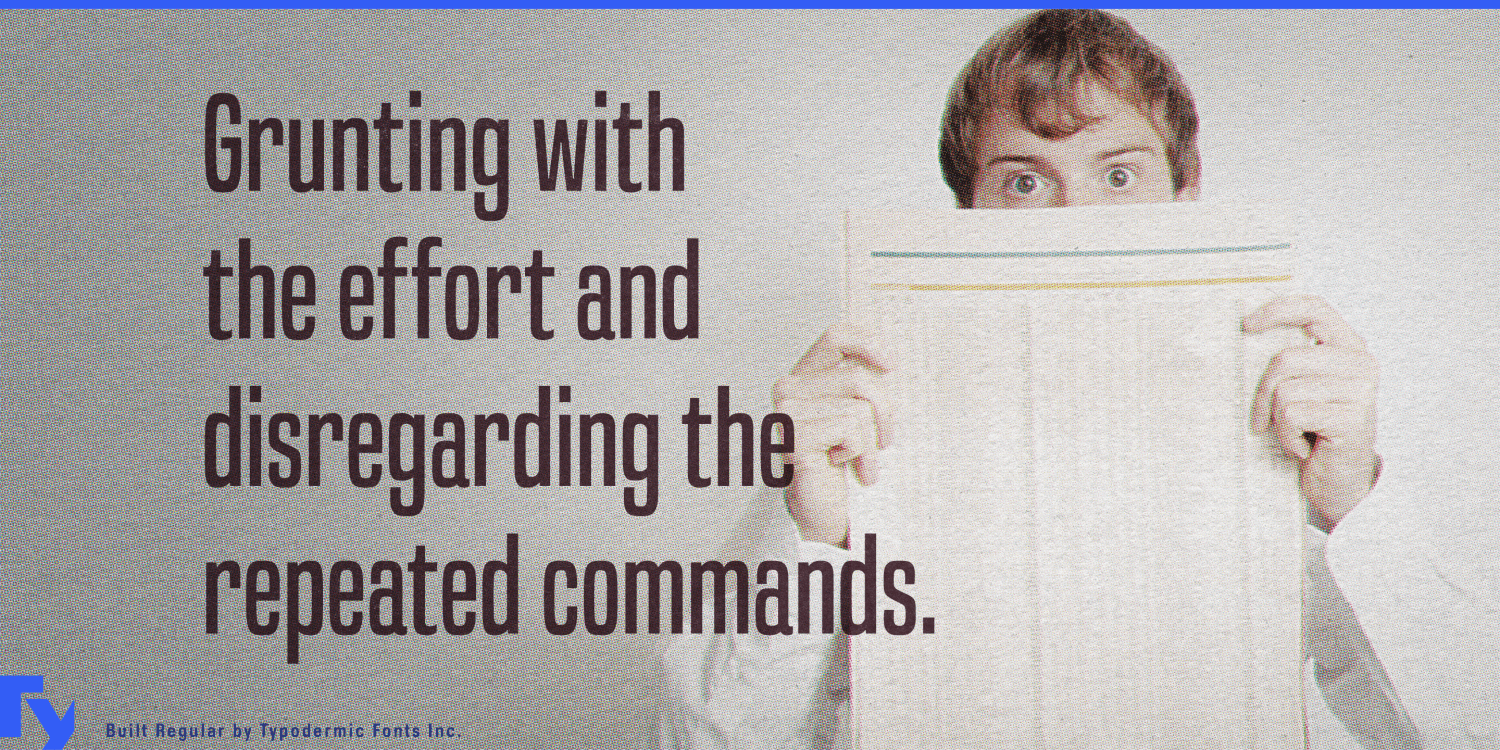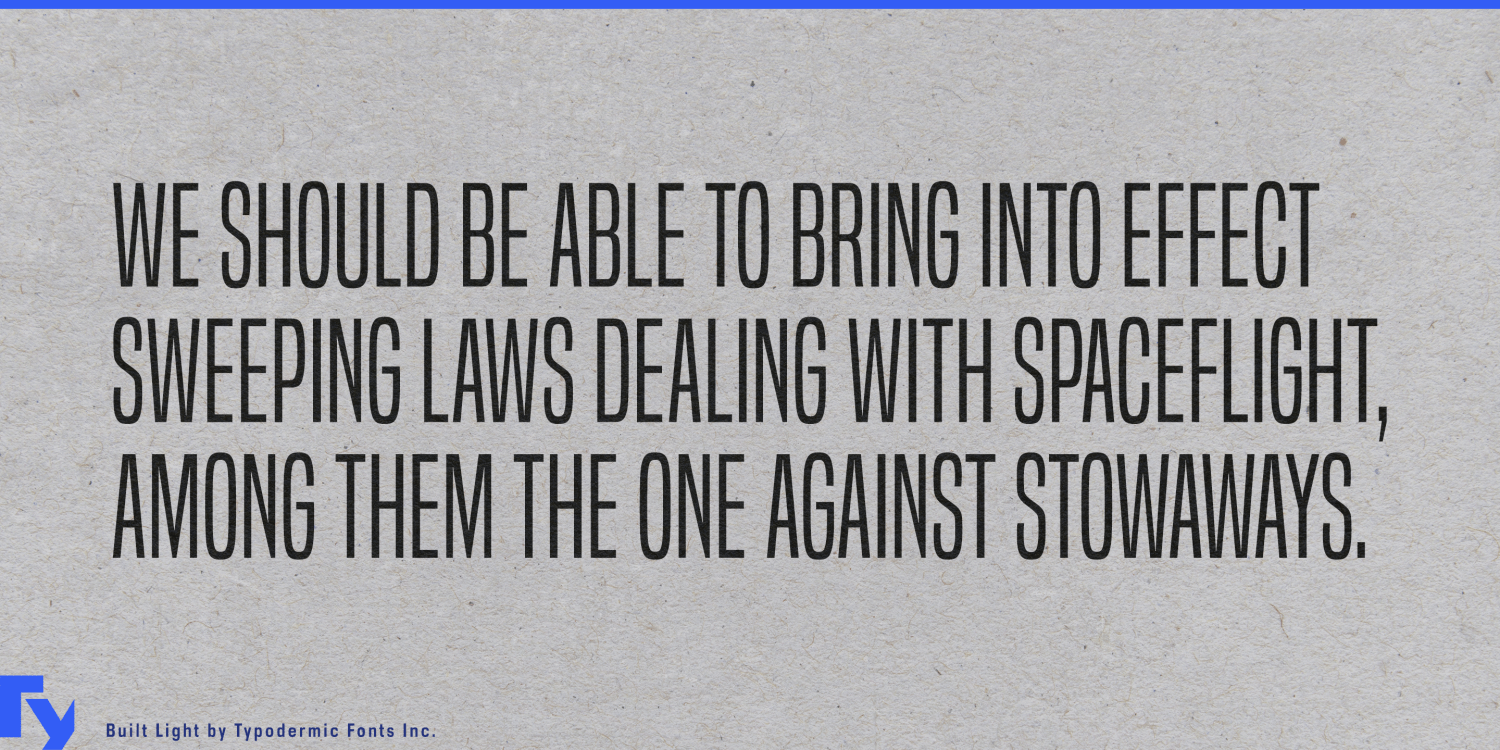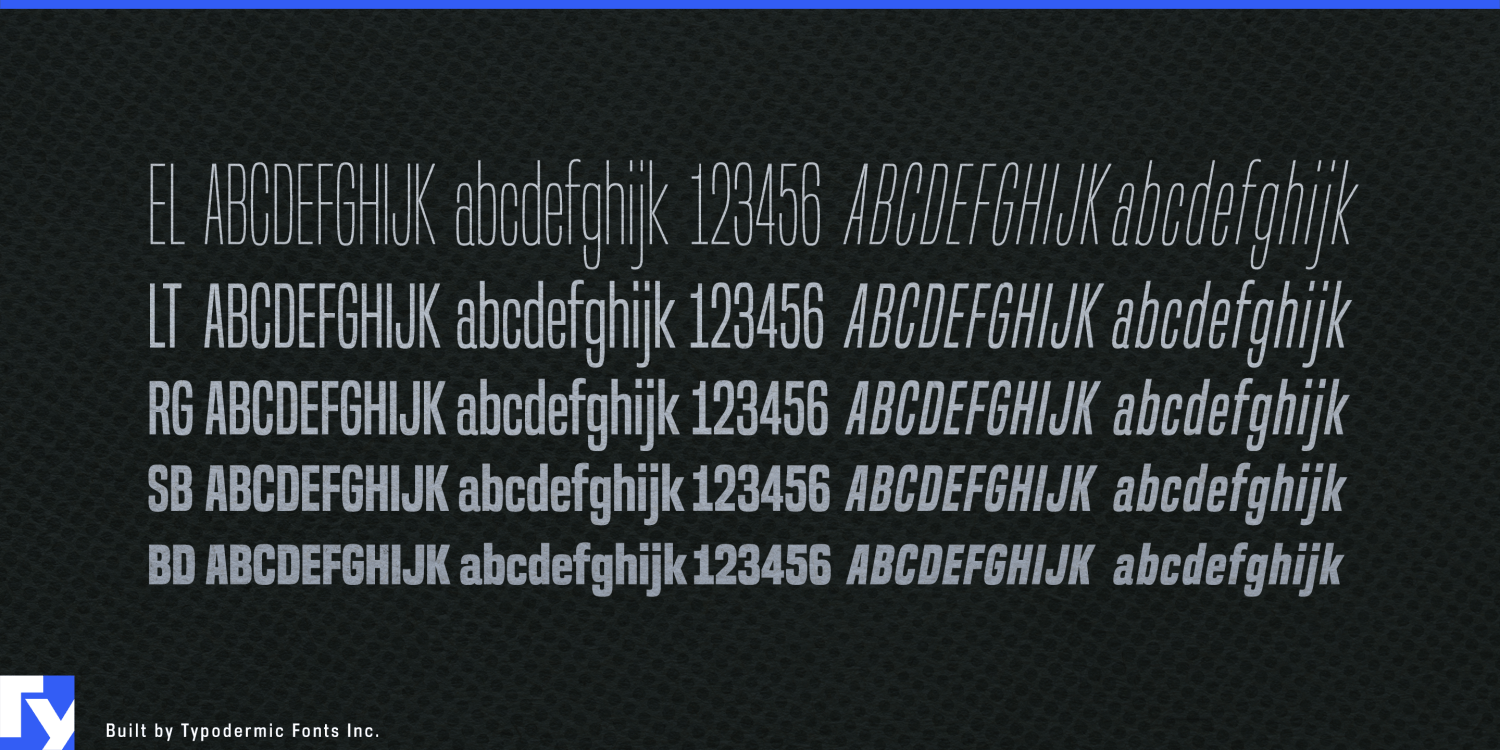
About Built
In the fast-paced world of journalism, where every word carries weight and every headline must captivate, Built emerges as the typeface that understands the pulse of modern media. This meticulously crafted font family marries the gravitas of traditional…